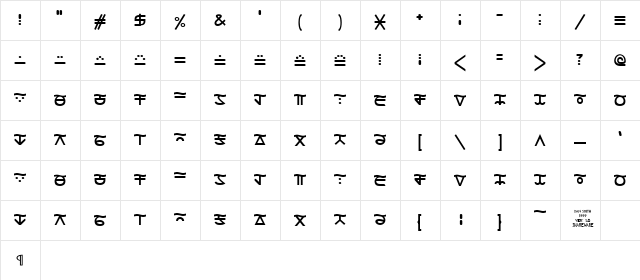
DS_Aqua-1 Regular Font Preview
DS_Aqua-1 Regular
DS_Aqua-1 Regular Font Details
Design Context for DS_Aqua-1 Typeface
DS_Aqua-1 takes a measured approach to typography — its balanced proportions and neutral character make it a reliable workhorse for both digital and print work.